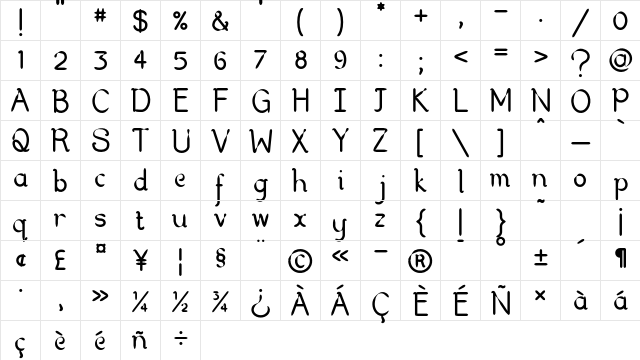
Gannister Regular
| Designer | sal spring |
Design Context for Gannister Typeface
Gannister is a composed and adaptable typeface that performs quietly and consistently across a wide range of design contexts.